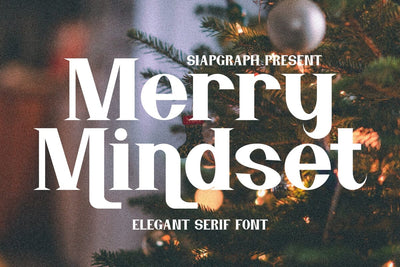
Merry Mindset - Elegant Serif Font
Merry Mindset is a elegant modern serif font inspired by the festive spirit of Christmas. Its sleek and refined design makes it perfect for creating stunning quotes, posters, t-shirts, mugs, tote bags, and labels. Merry Mindset is also ideal for fashion design and social media content, adding a sophisticated touch to any holiday-themed or modern design project.